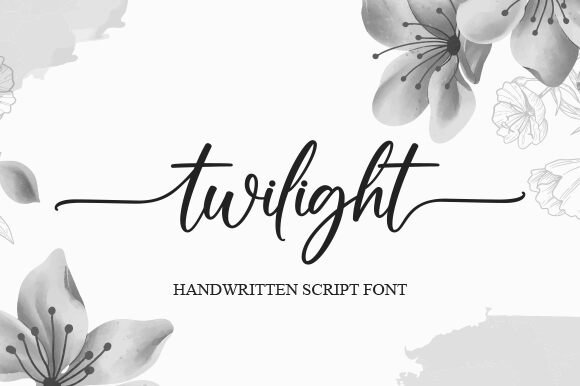
Twilight, designed by Graphix Line Studio, is the perfect semi-light, semi-condensed handwritten font for projects that require a personal touch. Its graceful curves and gentle strokes give off a whimsical vibe that is perfect for wedding invitations, scrapbooking pages or even social media posts. The semi-condensed width allows for more text to fit in a smaller space without sacrificing legibility. Use Twilight to add a touch of elegance and charm to your next project.